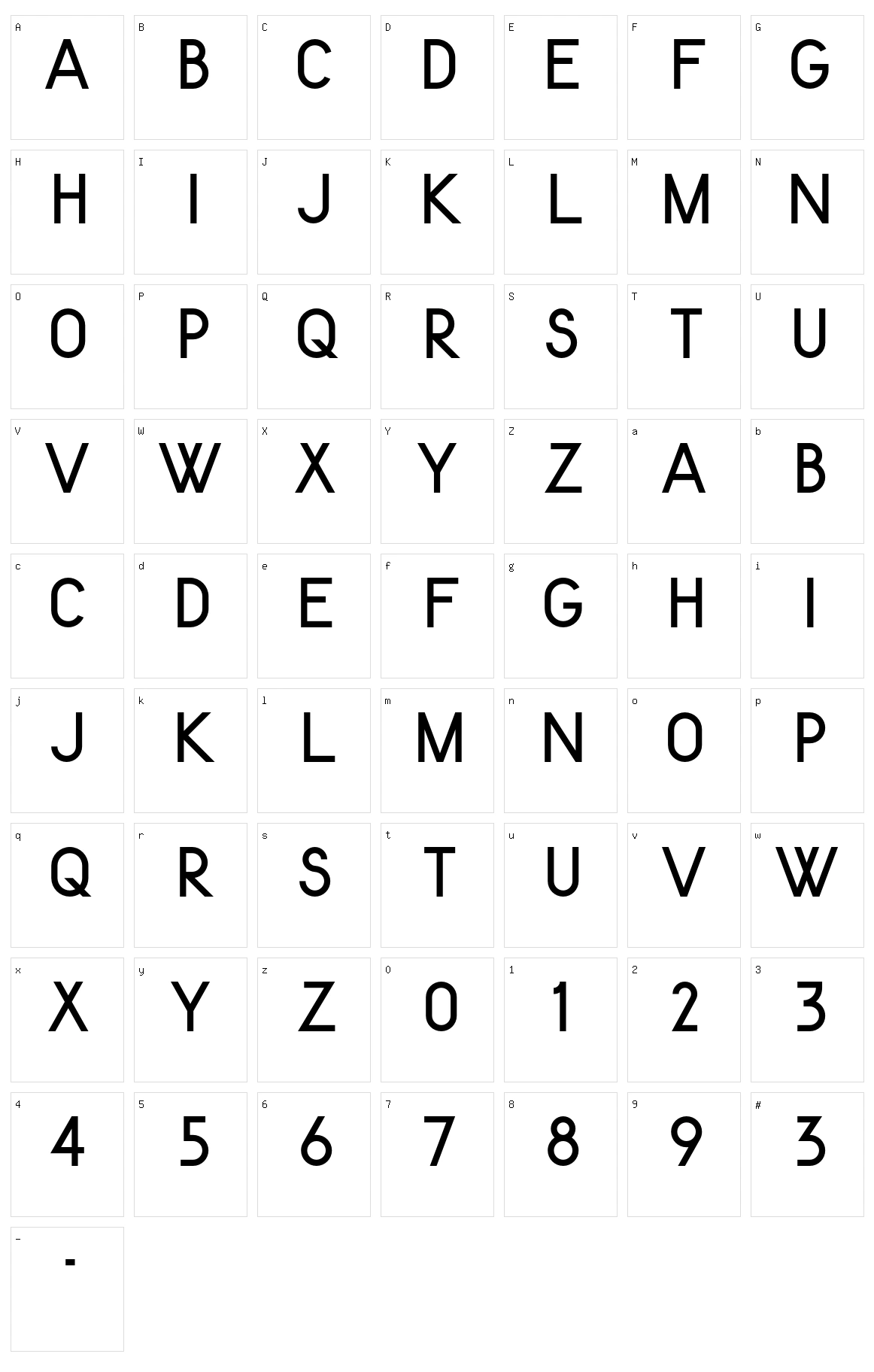
The 'Kenteken Smits' set of fonts represents the typography as used on vehicle license plates in The Netherlands between 1951 and 1979.
I was asked by the webmaster of nummerplaten.info to develop the original drawings from 1937 into a font. These originals were designed by mr J.B. Smits, director of the Amsterdam Institute for Applied Arts Education (Instituut voor Kunstnijverheidsonderwijs).
The name of the font set is in recognition of the original designer.
I ended up developing three versions.
'Kenteken Smits 1937' is a bare representation of the design as shown in a 1937 report on legibility of the design. It lacks C, O, I, Q and Y (these were not to be used on license plates). The character spacing is also as per the original design, i.e. suitable for producing license plates. This version is the most historically accurate of the three.
'Kenteken Smits 1951' is the font as it was finally used on actual license plates from 1951 onwards. Most notably the character '3' changed form. It also contains 'C' and 'O' which were added in later years to accomodate special issue plates (diplomatic and military). For good measure I completed the character set myself with an 'I', 'Q' and 'Y'. Spacing is still utilitarian. This is the version I recommend for 'typesetting' license plate mock-ups.
Finally, 'Kenteken Smits 2013' is a heavily expanded version. It contains a complete lower case set, accented characters, punctuation etc. Also the spacing has been adapted to accomodate other uses than 'plate setting'. For anything other than license plate mock-ups, I reccomend using this version.